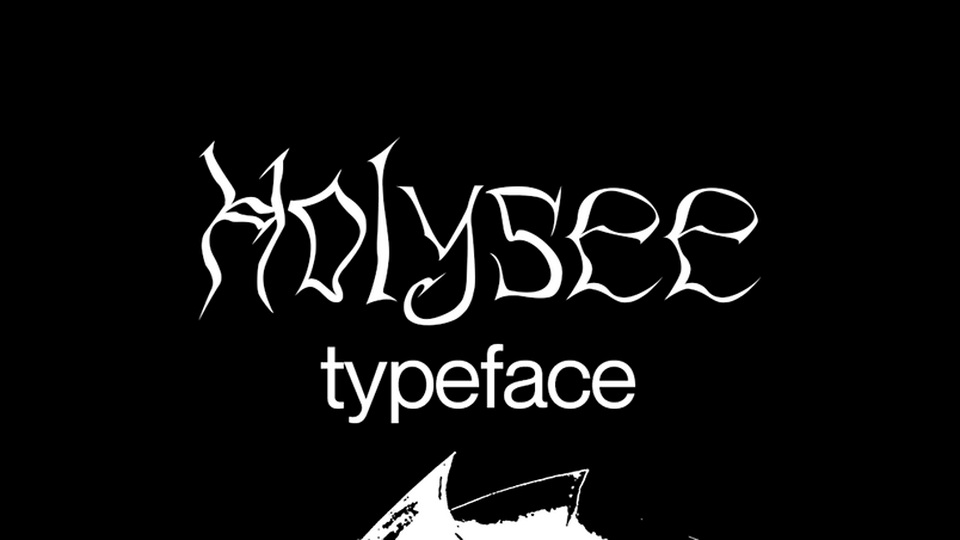
Download Holysee font, a unique handwritten typeface with dynamic flow. Holysee font is perfect for posters, album artworks and typographic compositions.